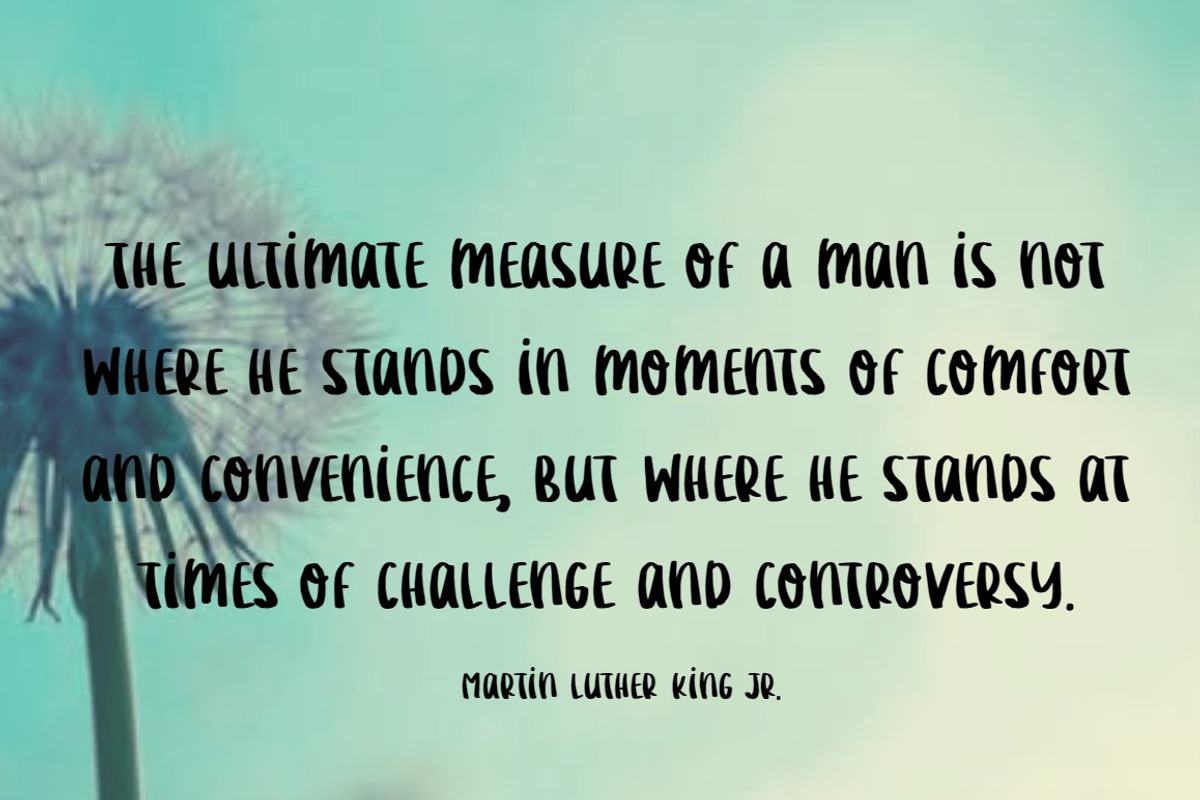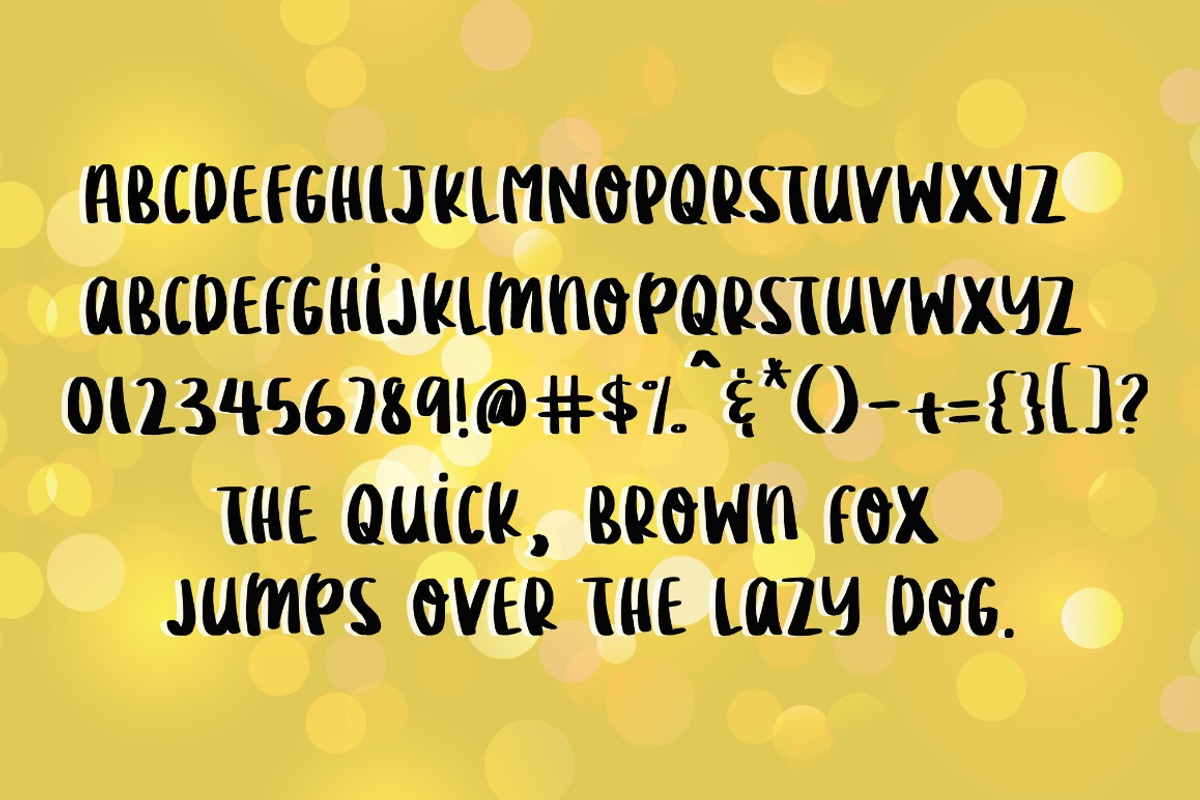
Lemonilla (short)-Brush Font
Lemonilla (short)-Brush Font by Sabrina Schleiger Design is a font selected for branding, posters, packaging, typography.
Why Lemonilla (short)-Brush Font is worth a look
Lemonilla (short)-Brush Font by Sabrina Schleiger Design fits naturally into Branding, posters, packaging, typography.